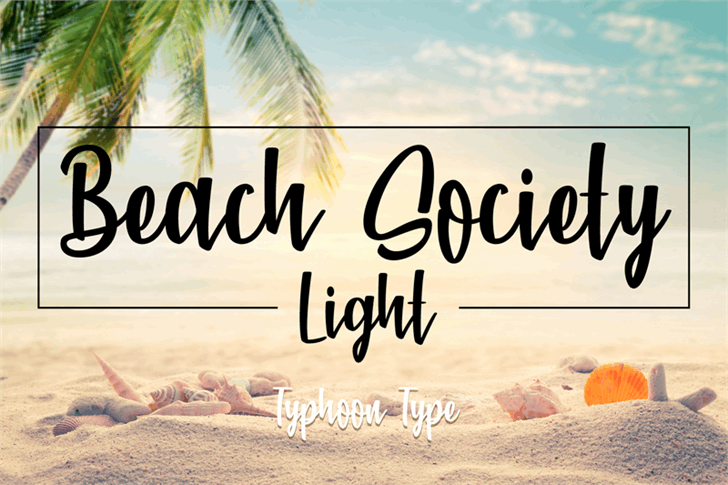
Beach Society Brush Font
Hi there! Introducing Beach Society. It is designed by Typhoon Type – Suthi Srisopha. The font is carefully designed to work together in harmony. It is ideal for packaging design, greeting cards, labels, photography overlays, advertisements / social media posts, t-shirt design, branding design, magazines!